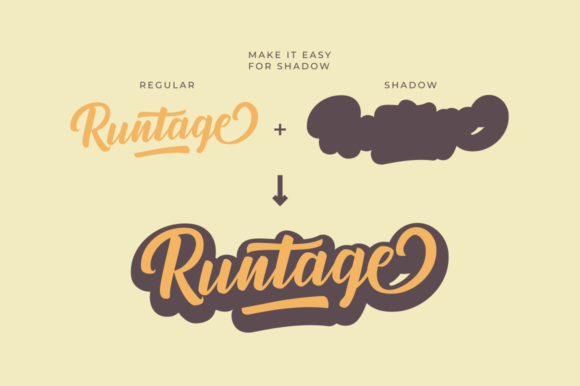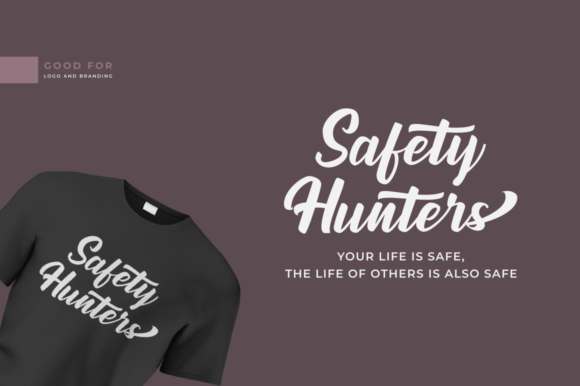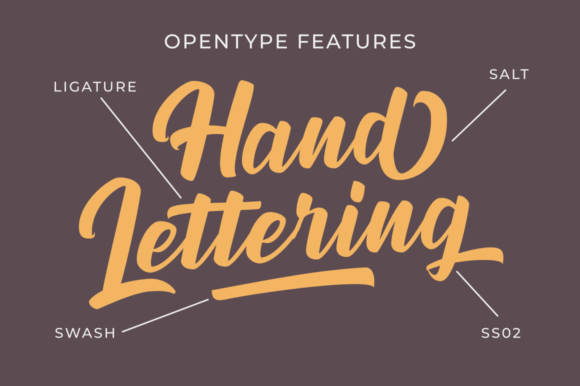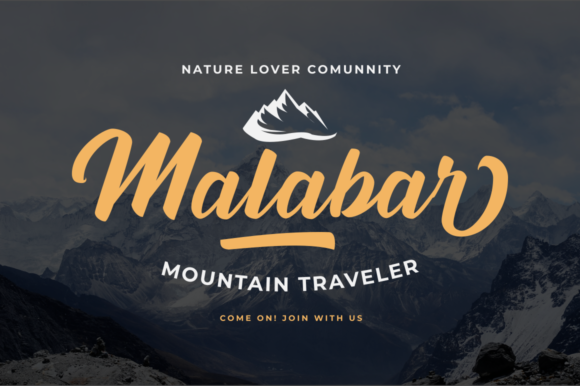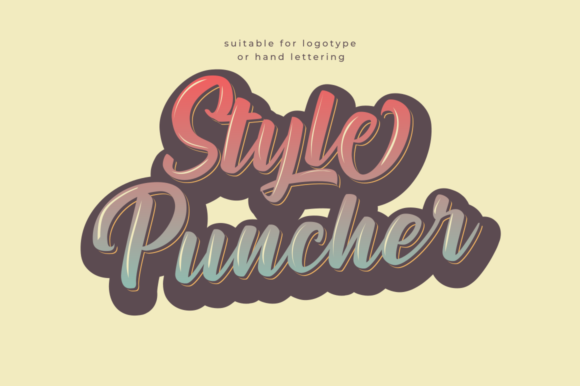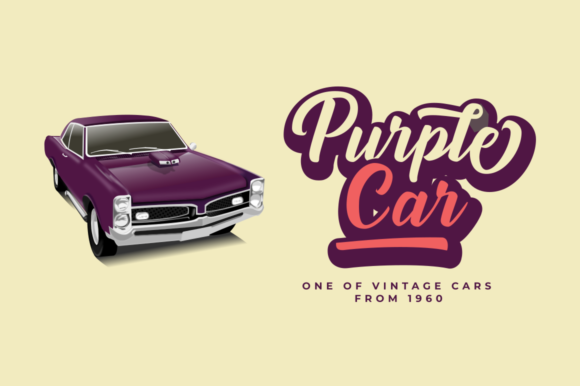
Introduction to Runtage Font
Have you ever stared at a blank page, your mind racing with ideas, yet unable to bring your vision to life? That’s exactly where I found myself when I stumbled upon the Runtage Font. It was love at first sight – a perfect blend of modern style and vintage charm that instantly sparked my creativity. As a designer, I know how crucial it is to have a reliable design resource that can elevate our projects and make them truly stand out.
Enter Runtage Font, a high-quality, hand-letter script font that’s perfect for a wide range of creative projects. Whether you’re working on logos and branding, hand lettering, or merchandise, this font is sure to add a touch of sophistication and elegance to your designs. Plus, with its transparent background, you can easily layer it over any image or texture, giving you endless possibilities for creative expression.
But what really sets Runtage Font apart is its versatility. It’s not just limited to modern designs – its vintage charm makes it perfect for projects that require a more classic or retro feel. And the best part? You can download it for free, making it an invaluable addition to any designer’s toolkit.
Key Features of Runtage Font
- High-quality design resource with a unique, modern aesthetic
- Comes with a transparent background, allowing for seamless integration into various designs
- Features a large character set, including uppercase and lowercase letters, numbers, and punctuation marks
- Designed at 72 dpi, making it suitable for digital use, including web design, graphic design, and more
- Perfect for designers and artists looking for a bold, eye-catching font to elevate their creative project
Honest Review: Runtage Font
I recently came across the Runtage Font, and I must say it’s a great addition to any designer’s resource library. This high-quality font is perfect for creative projects where you need a unique and eye-catching typography.
- ✨ Unique and quirky design that adds character to any text
- ✨ High-quality font that’s suitable for both digital and print projects
- ⚠️ Limited character set, which may not be suitable for projects that require a wide range of characters
- ⚠️ May not be suitable for projects with transparent backgrounds, as the font may not display well
Overall, I’m impressed with the Runtage Font. It’s a great resource for designers looking for a unique and high-quality font for their creative projects. While it may have some limitations, it’s definitely worth considering for your next design project.
Tips for Getting the Most Out of Runtage Font
For a high-quality design, use the Runtage Font on a transparent background to create a clean and modern look. You can also experiment with different font sizes and styles to add visual interest to your design.
Common Use Cases for Runtage Font
The Runtage Font is perfect for creative projects such as logos, business cards, and social media graphics. Its high-quality design and transparent background make it ideal for designers who want to create visually appealing and professional-looking designs.